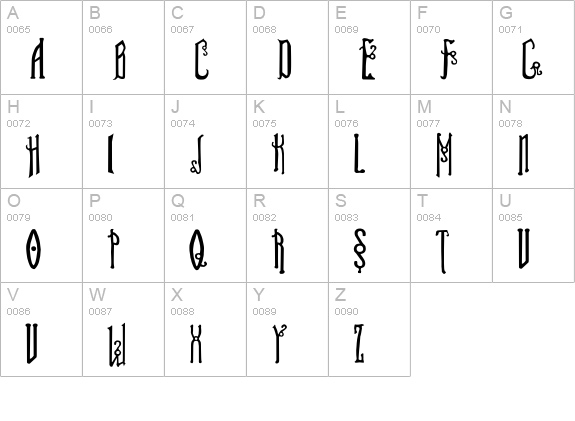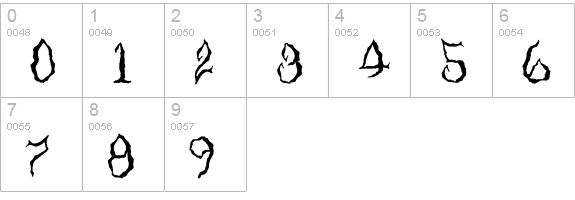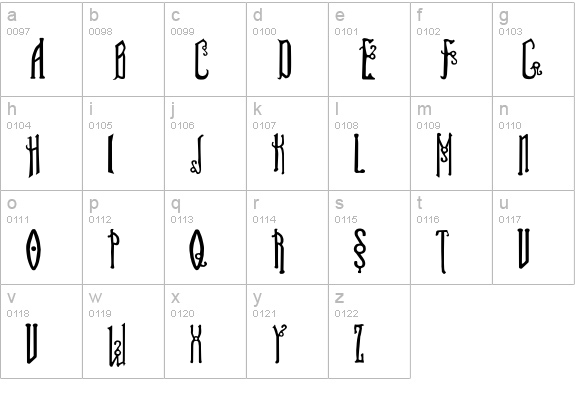
Soul Reaver Font Details
Introducing Soul Reaver, a captivating and mystical font that will transport you to a world of dark enchantment. With its intricate and mysterious letterforms, Soul Reaver exudes a sense of ancient power and otherworldly beauty. Every curve and detail of this font has been carefully crafted to evoke a feeling of divine elegance and ethereal allure. Each letter is adorned with delicate serifs that flow gracefully, creating a harmonious balance between strength and delicacy. The unique design of Soul Reaver brings to mind ancient scripts and forgotten languages, adding a touch of enigmatic charm to any project. But what sets Soul Reaver apart is not only its captivating aesthetic—it is also freely available to download at FontsMarket.com. Yes, you heard it right! This mesmerizing font can be yours without any cost. Whether you are a designer, a writer, or simply someone looking to add a touch of enchantment to their creations, Soul Reaver offers a world of possibilities, completely free of charge. Imagine using Soul Reaver to bring a touch of magic to your book covers, branding materials, invitations, or even your personal journal. Its versatility and striking appearance will make your words come alive, capturing the attention and imagination of anyone who lays their eyes on it. So, why wait? Dive into the mystical world of Soul Reaver and let its free download at FontsMarket.com be your gateway to limitless creativity. Unleash the power of this captivating font and watch as it weaves its magic through your designs, leaving a lasting impression on all who behold it.